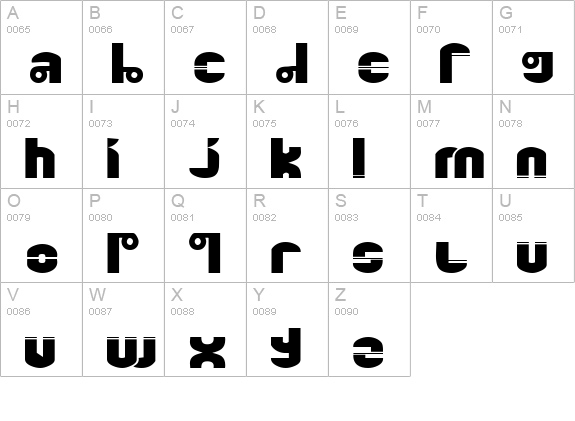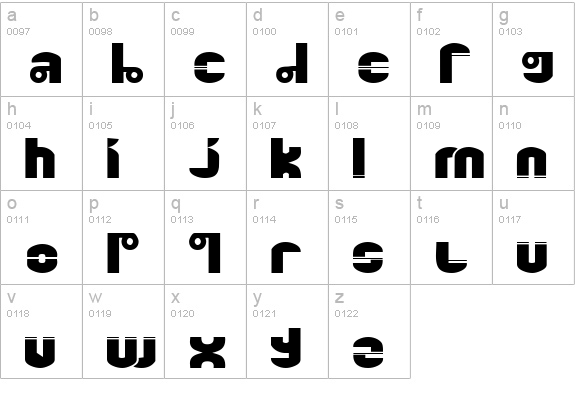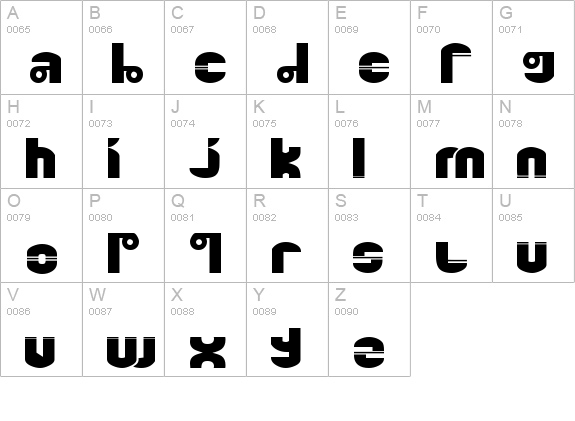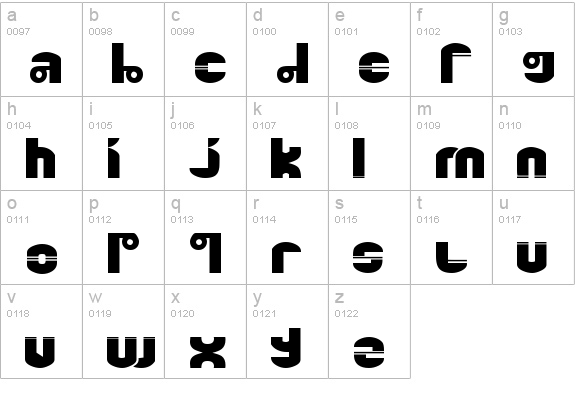
Quinkie Font Details
Introducing Quinkie, a stunningly elegant font that exudes sophistication and charm. With its graceful curves and delicate details, this font is perfect for adding a touch of class to any design project. Quinkie is not only visually appealing, but it also offers incredible versatility. Whether you're designing a logo, creating a beautiful wedding invitation, or crafting a stylish poster, this font will elevate your work to new heights. One of the best things about Quinkie is that it is free. That's right, you can download this exquisite font without spending a dime. It's freely available for download at FontsMarket.com, one of the leading platforms for high-quality fonts. The designers behind Quinkie understand the importance of accessibility, which is why they have made this font freely available to everyone. Now, you can bring a touch of elegance to your designs without breaking the bank. But don't let its affordability fool you - Quinkie is a font that rivals even the most expensive options on the market. Its attention to detail and refined aesthetics make it a truly valuable asset for any designer. So why wait? Download Quinkie today and discover the beauty and versatility of this remarkable font. Whether you're a professional designer or a hobbyist, Quinkie will undoubtedly become one of your go-to fonts for all your creative endeavors. And remember, it's all just a click away at FontsMarket.com.